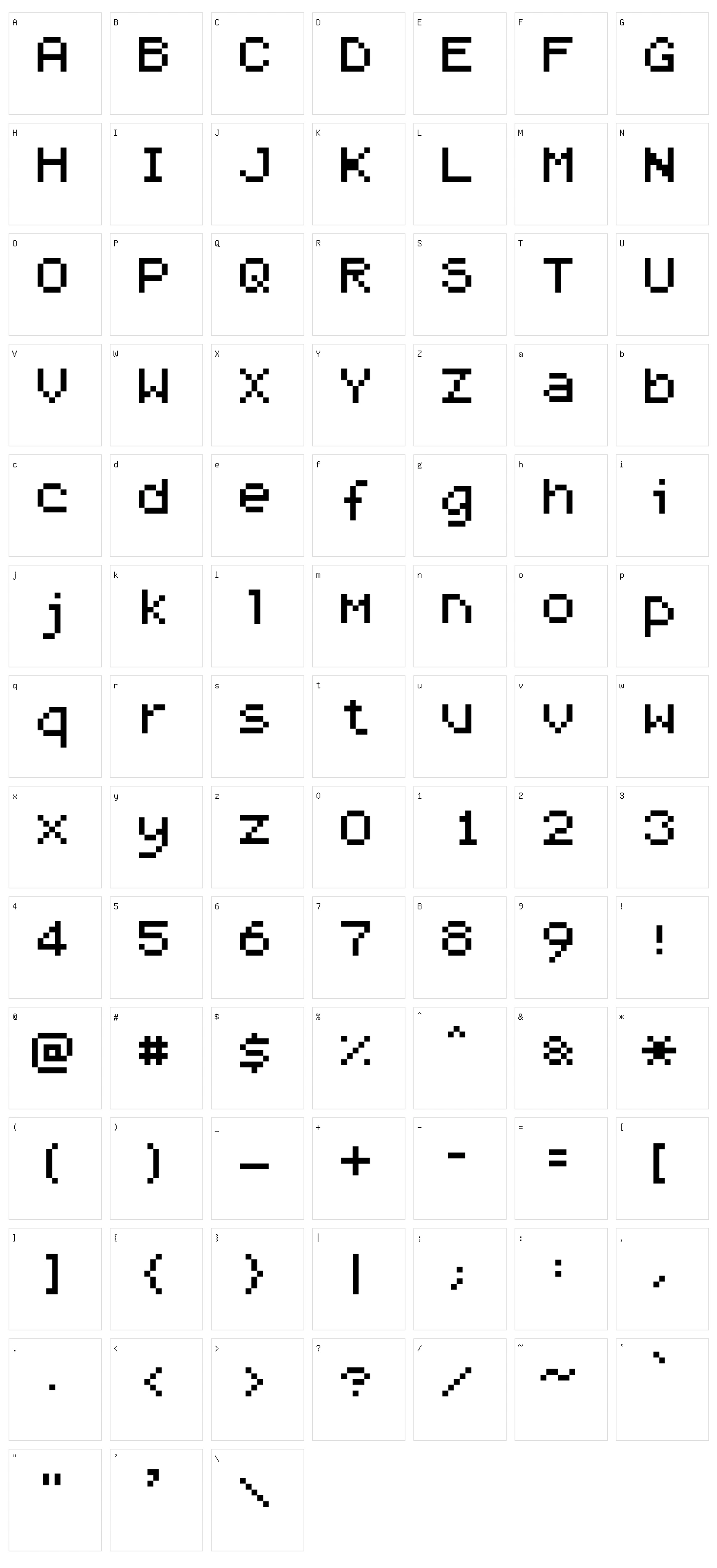
The free font Steelflight is carefully designed by Caveras, showcasing a thoughtful balance of creativity and usability and belongs to the Bitmap font family. When you download the ZIP file, it contains only 113.59 KB of font files, making it lightweight and quick to download. Please review the license details below to understand permitted usage and distribution rights. If license information is not available, we recommend using this font for personal projects only or contacting the author directly for commercial usage permissions.